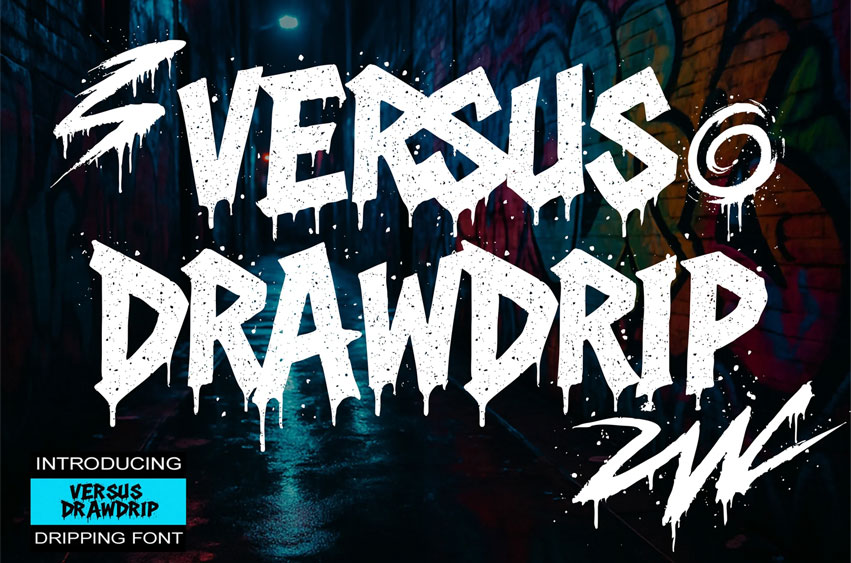
Versus Drawdrip Font
Versus Drawdrip Font is inspired by Raw urban Dripping style graffiti handstyle and the raw energy of street graffiti.
Perfect for branding or any digital design that needs a wild and edgy touch. Great for creators who want their visuals to stand out with no compromises